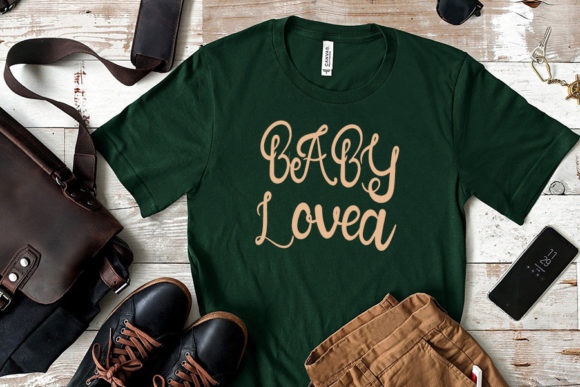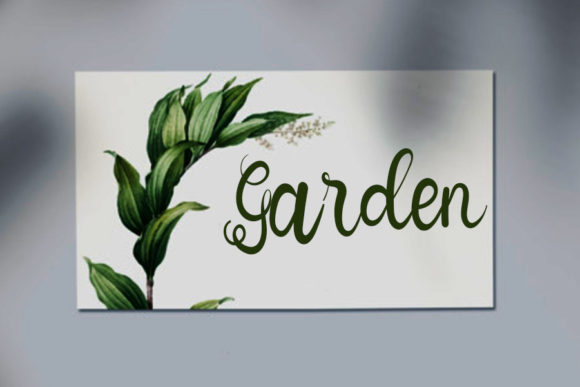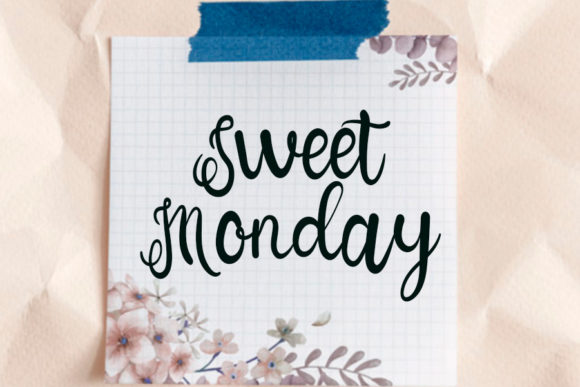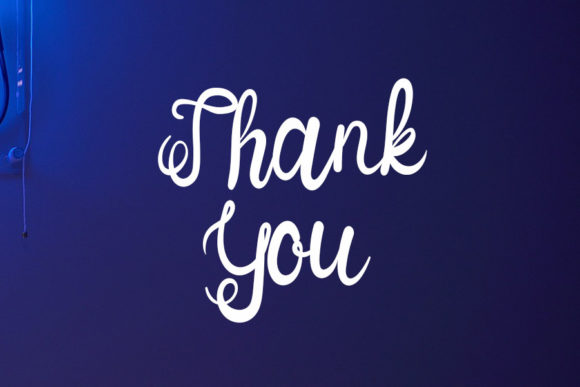
You know that feeling when you’re working on a design project and you just can’t seem to find the right font to tie everything together? You’ve tried a dozen different options, but nothing seems to capture the essence of your vision. That’s when I stumbled upon the Holiday Maker Font – a chic, cursive script font that has become my go-to choice for any project that needs a touch of elegance.
With its stylish alternates and ligatures, the Holiday Maker Font is the perfect match for any design project. Whether you’re creating a wedding invitation, a birthday card, or a marketing brochure, this font is sure to add a level of sophistication and confidence that will leave a lasting impression on your audience. As a designer, I can attest to the value of having a versatile font like Holiday Maker Font in your toolkit – it’s a game-changer for any project that needs a little extra flair.
Holiday Maker Font Key Features
- Font Family: Holiday Maker is a unique, hand-drawn font family designed to evoke the feeling of a holiday or vacation.
- Character Count: The font family includes over 400 glyphs, including uppercase and lowercase letters, numbers, punctuation marks, and special characters.
- Unique Characteristics: The font features a playful, cursive design with swashes and flourishes, making it ideal for adding a touch of whimsy to your designs.
Holiday Maker Font Review
The Holiday Maker Font is a festive and fun font that’s perfect for any holiday-themed project. ✨ Its playful, cursive style is reminiscent of handwritten notes and adds a personal touch to any design. ✨ The font includes a wide range of characters, including accents and punctuation, making it suitable for use in various languages.
One of the standout features of the Holiday Maker Font is its versatility. ✨ It can be used for a variety of projects, from holiday cards and invitations to social media graphics and advertisements. The font’s consistency and ease of use make it a great choice for designers who want to create eye-catching and engaging content quickly.
- ⚠️ The font may not be suitable for projects that require a more formal or serious tone, as its playful style may come across as unprofessional.
Overall, the Holiday Maker Font is a great choice for designers who want to add a touch of holiday cheer to their projects. While it may have some limitations, its versatility and playful style make it a valuable addition to any designer’s toolkit.
The Holiday Maker Font is perfect for designing festive and fun content, such as:
- Christmas and New Year’s Eve invitations
- Holiday-themed social media graphics
- New Year’s resolutions templates
For the best results, use the Holiday Maker Font in combination with bright and colorful graphics and bold text to create a festive atmosphere.